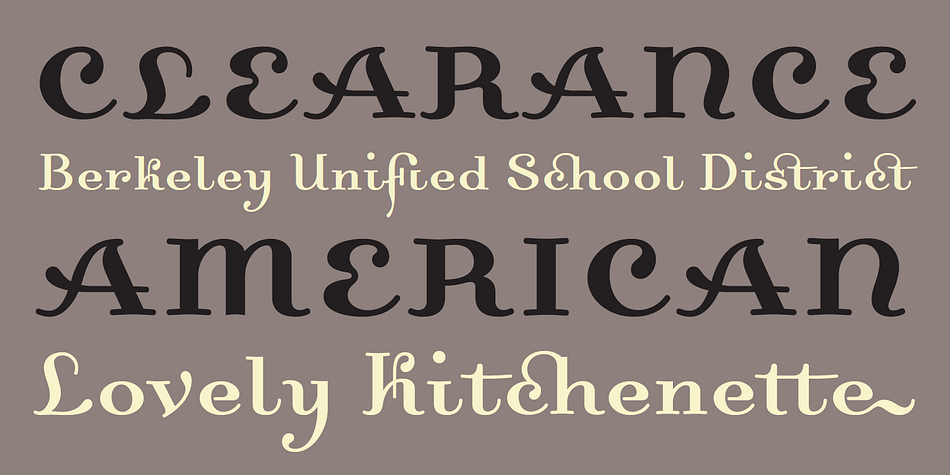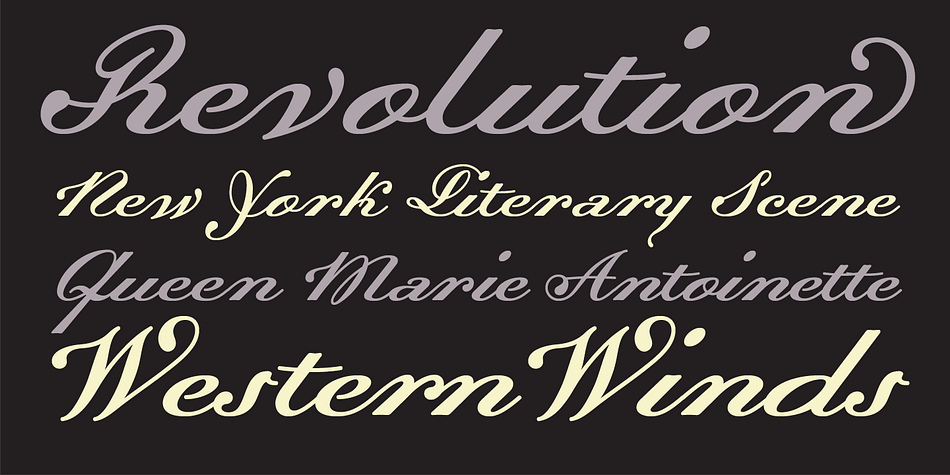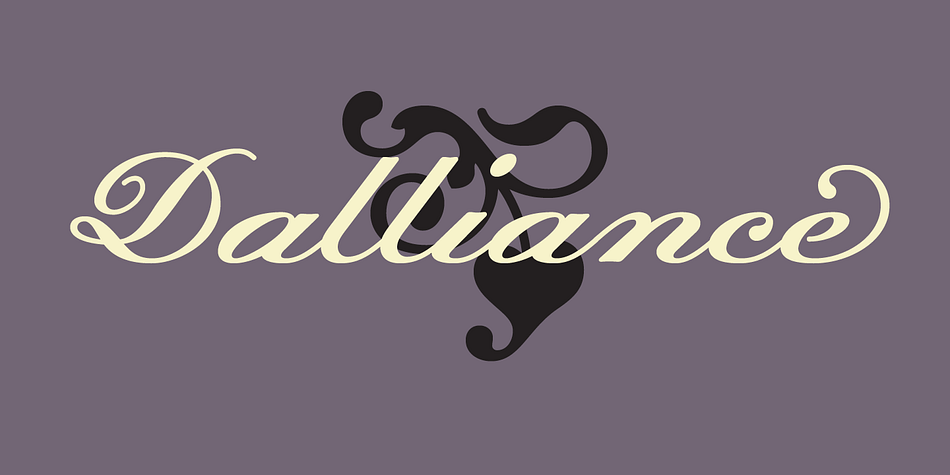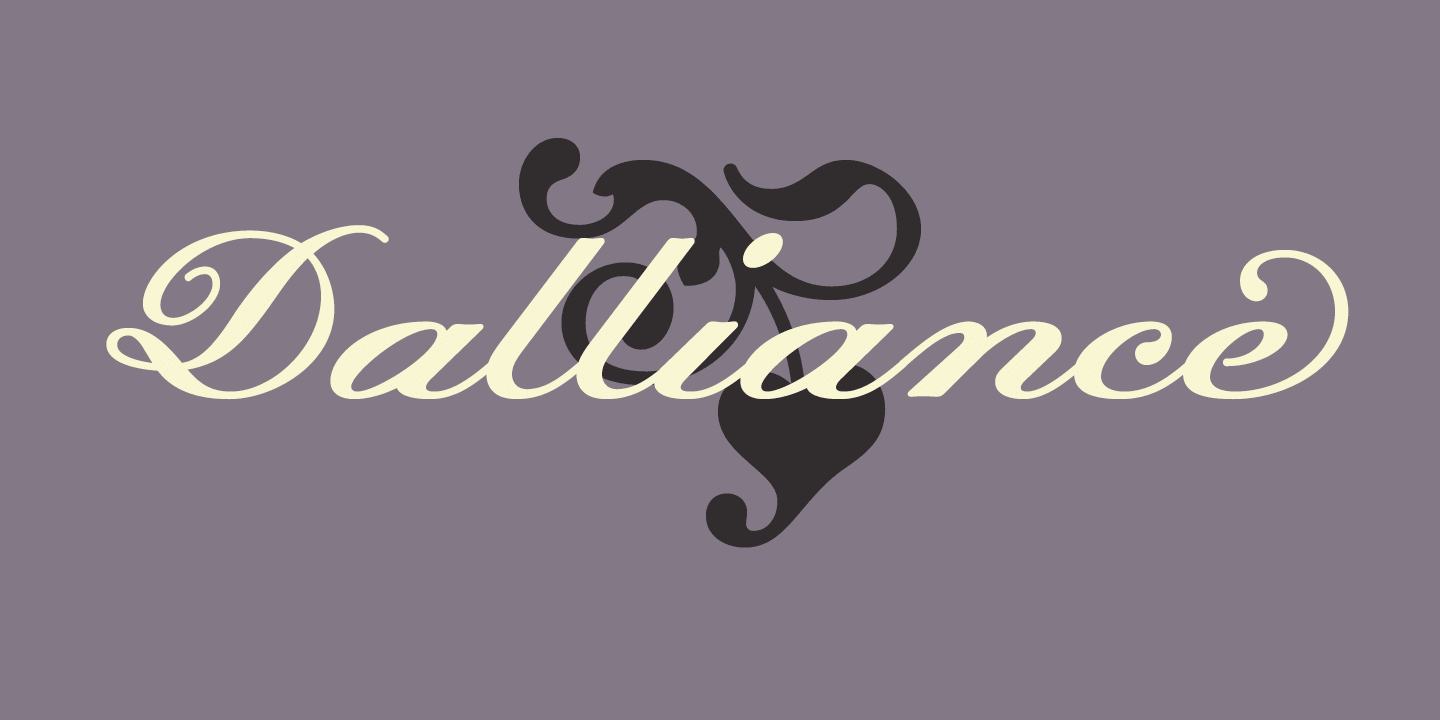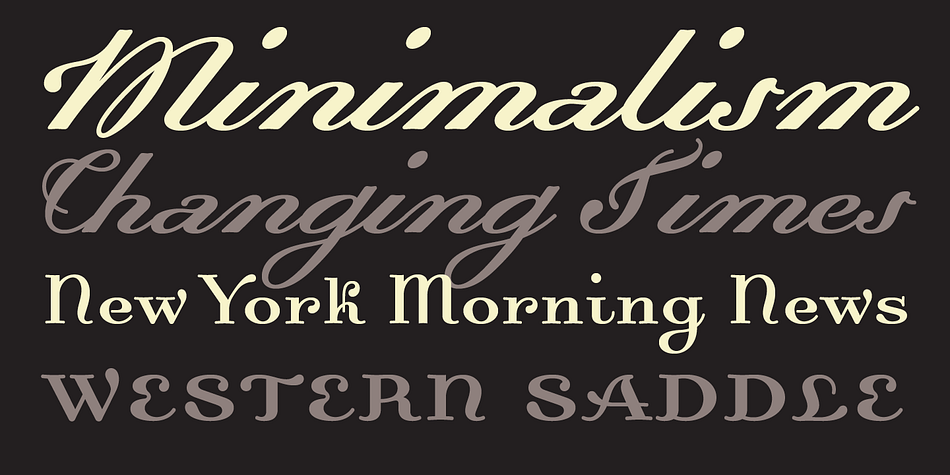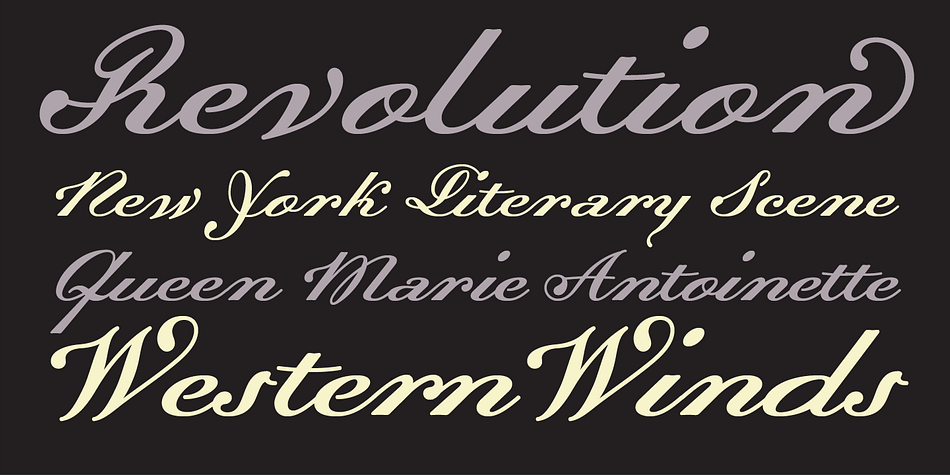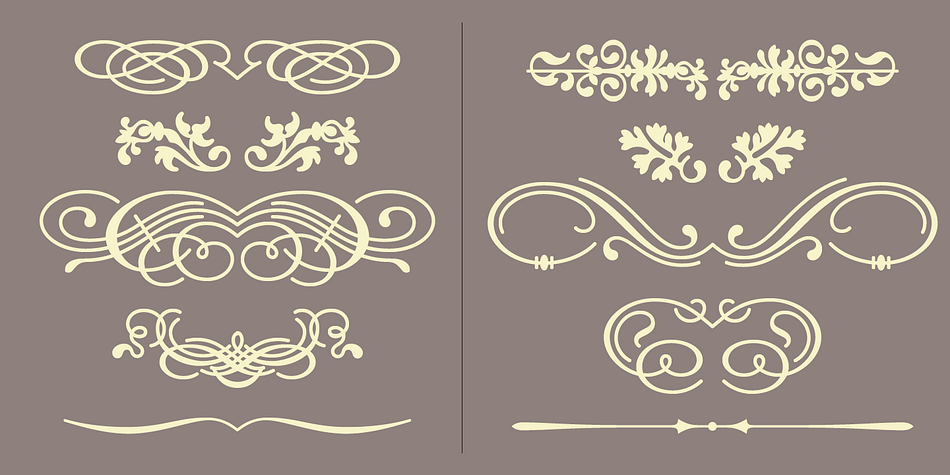
Designed by Frank Heine, Dalliance is a dingbat, historical and script font family. This typeface has four styles and was published by Emigre.
Dalliance Script is based on the elegant handwriting found on a map of a horrific battle between the Habsburg Coalition and France which took place at Ostrach, in southwest Germany, in 1799.
A roman style, and flourishes, were added to turn Dalliance into a fully functional typeface family.